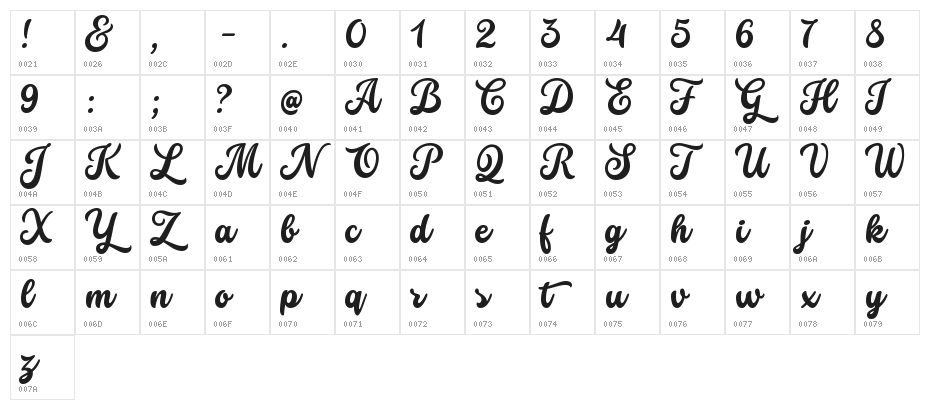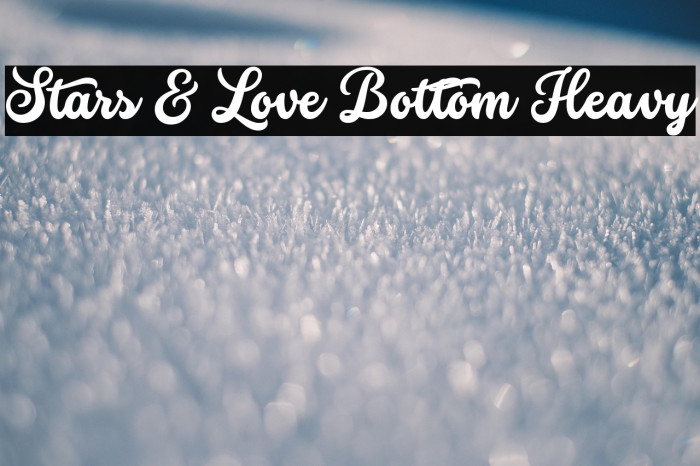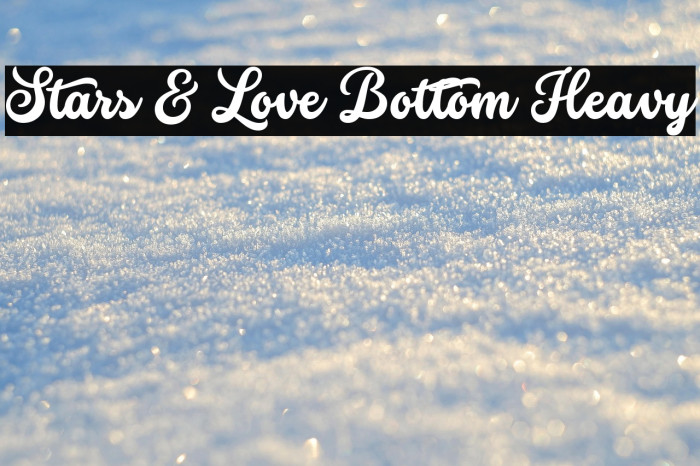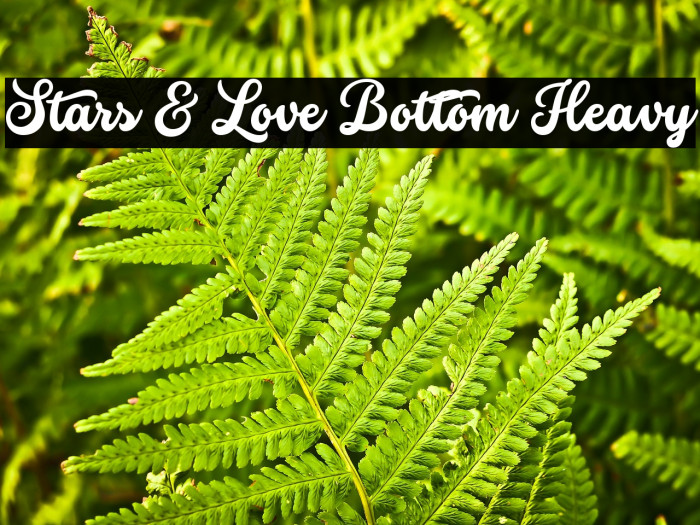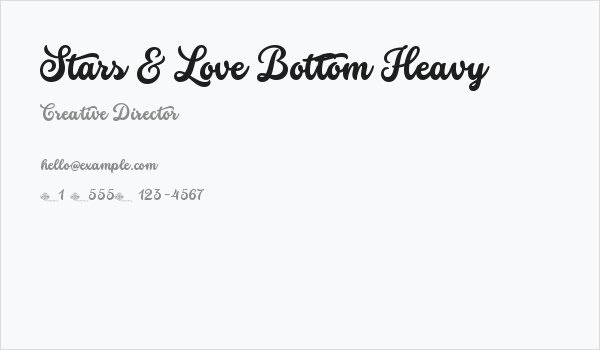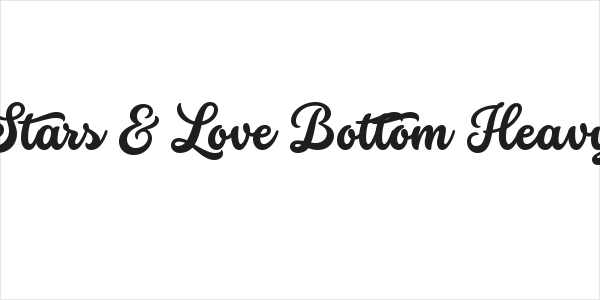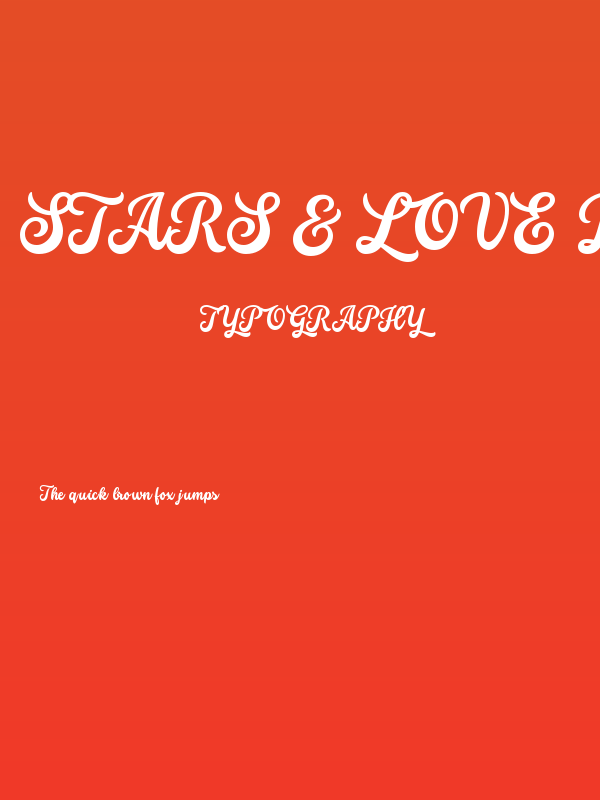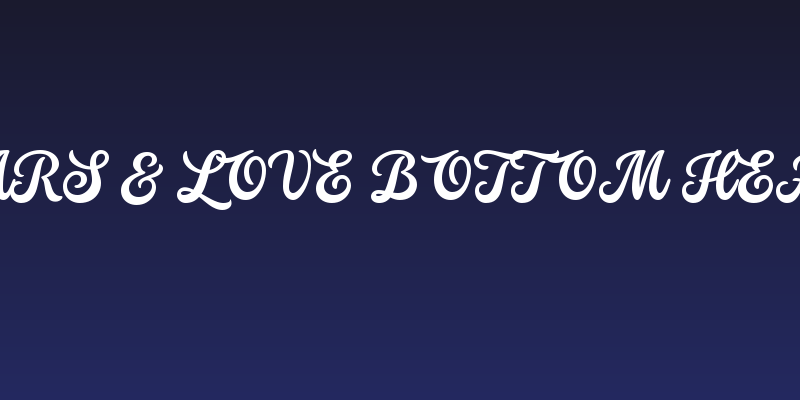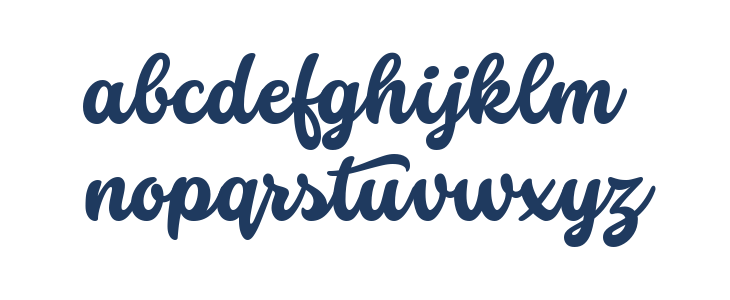
Stars & Love Bottom Heavy Font
Stars & Love Bottom Heavy Description
This font features a bold, flowing script style with a playful and elegant appearance. The characters are connected, creating a sense of continuity and fluidity. The uppercase letters have a distinctive flair, with exaggerated loops and curves that add a touch of sophistication. The lowercase letters maintain a consistent thickness, contributing to the overall balanced look. Numbers are equally stylized, matching the aesthetic of the letters. Special characters are designed with the same attention to detail, ensuring they integrate seamlessly with the rest of the font. This font is perfect for projects that require a personal, handwritten touch while maintaining readability.
| Overall Style | Elegant, Playful |
| Proposed Projects | Ideal for wedding invitations, greeting cards, logos, and branding materials that require a personal and elegant touch. |